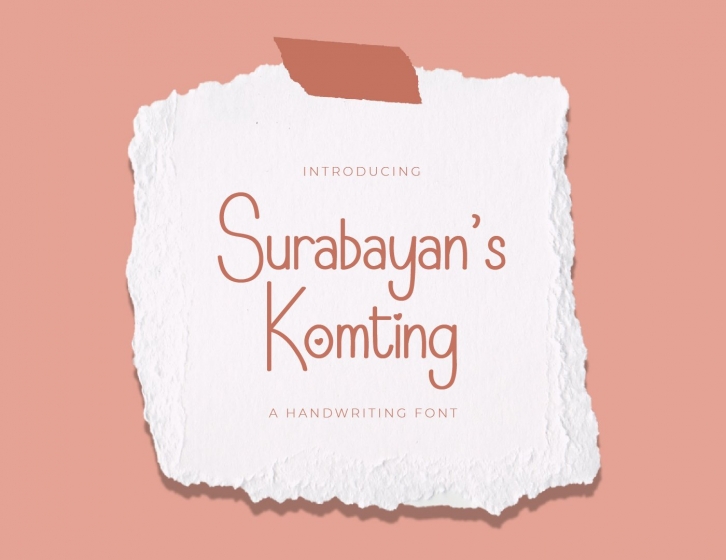
Surabayan’s Komting Script Font
Surabayan’s Komting is the one of Script Font, it is adapting from some School Script and Handwritten Fonts. Because "Surabayan’s Komting" is created and adapted from two types Script Font, "Surabayan’s Komting" has look more unique and different from commonly School and Handwritten type fonts. It has great consistency, neatness, and look; likewise "Surabayan’s Komting" has unique creatures that can make the design look feminism, gentle, artistic, simple, and modern. So that, "Surabayan’s Komting" is appropriate for greeting and invitation card, letter, decorate, detail, etc.
• OpenType Features (Stylistic Set)
• Numerals & Punctuations